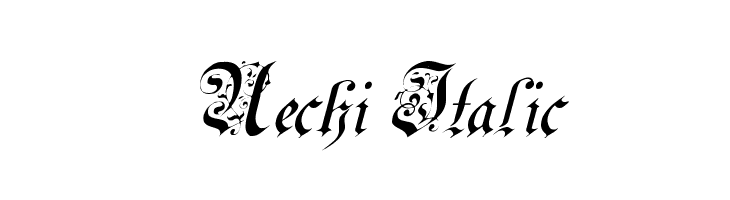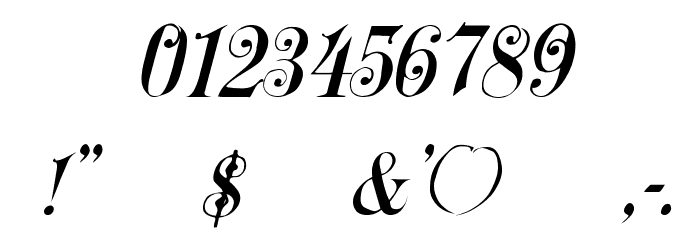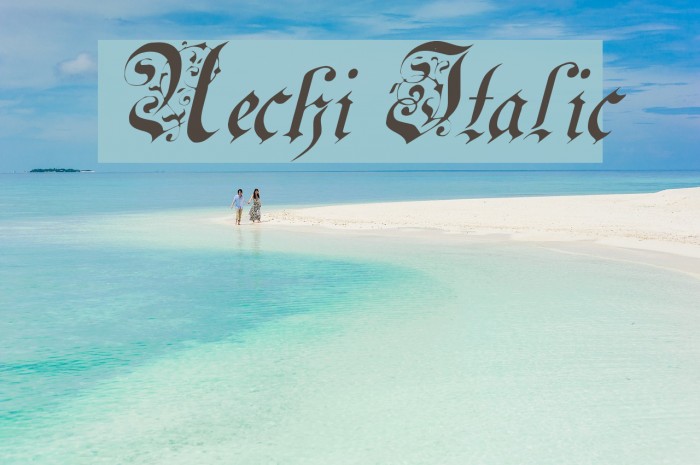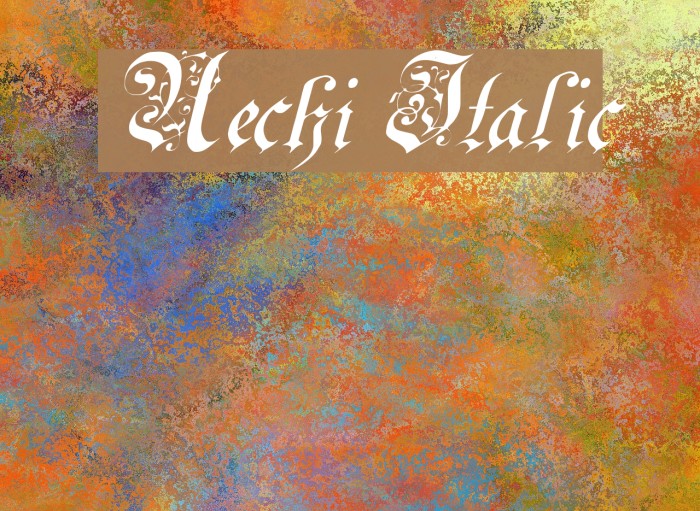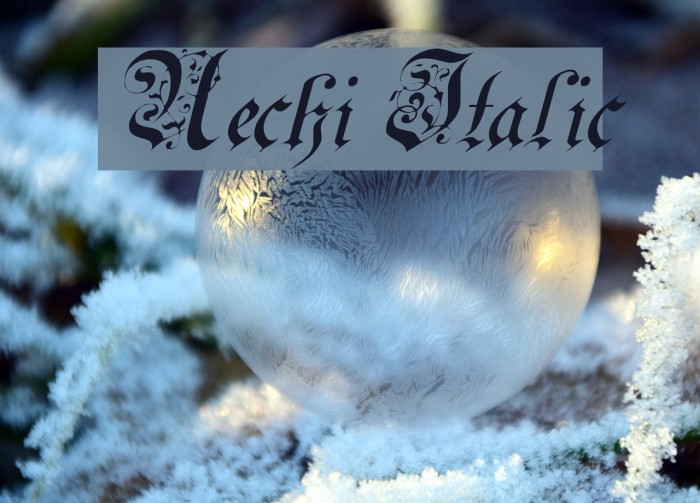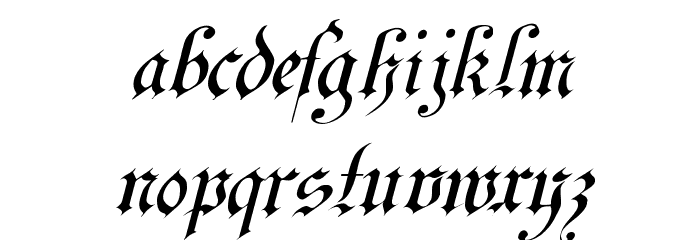
Uechi Italic Font
Uechi Italic Description
This font features an intricate and decorative style, combining elements of traditional calligraphy with modern flair. The uppercase letters are adorned with elaborate flourishes and embellishments, creating a sense of elegance and sophistication. The lowercase letters maintain a more classic calligraphic appearance, with smooth curves and sharp angles that enhance readability while still offering a unique aesthetic. The numerals are similarly styled, with a blend of ornate details and clean lines. Special characters are designed to match the overall decorative theme, making this font suitable for artistic and formal applications.
| Use Case | Logos, Invitations, Artistic projects |
| Proposed Projects | Ideal for wedding invitations, luxury branding, certificates, and artistic posters. |